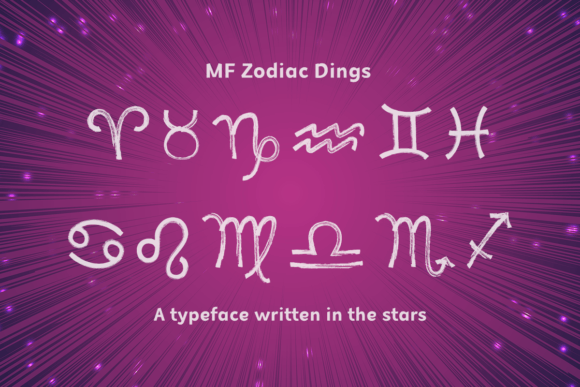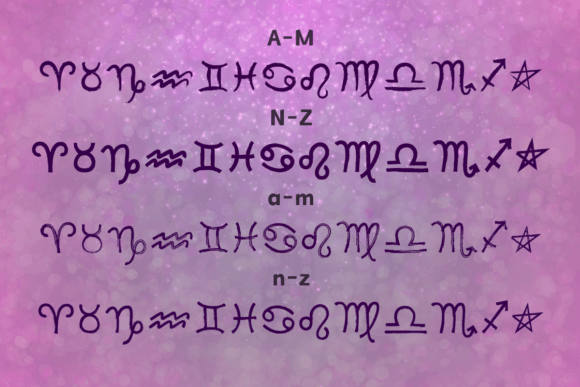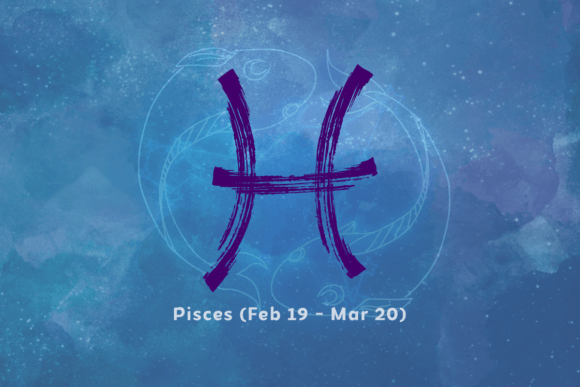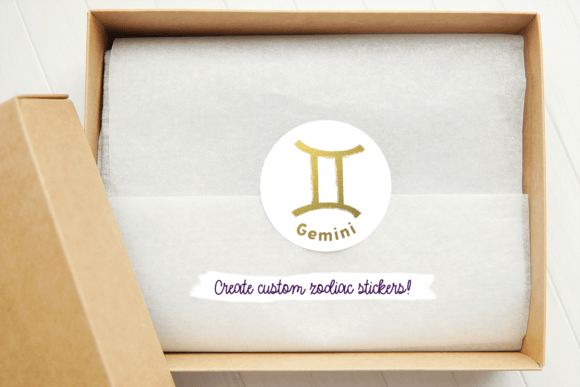
Mf Zodiac Dings Font
Introducing the MF Zodiac Dings dingbats font, a playful and captivating font designed specifically for astrology enthusiasts and zodiac-themed projects. This unique font features four hand-drawn versions of each of the 12 astrological signs, offering a delightful variety to bring your designs to life.
Whether you’re creating content for astrology websites, designing book covers, or developing zodiac-inspired products, the MF Zodiac Dings font is the perfect companion. It allows you to effortlessly incorporate the astrological signs into your projects, adding a touch of charm and personality.
The MF Zodiac Dings font offers a range of hand-drawn variations for each zodiac sign, allowing you to explore different styles and find the perfect fit for your designs. Whether you prefer a bold and expressive illustration or a more intricate and detailed version, this font provides you with the flexibility to choose the style that resonates with your creative vision.
Astrology enthusiasts and professionals will appreciate the attention to detail and authenticity in the MF Zodiac Dings font. It captures the essence of each zodiac sign, allowing you to create captivating visuals that resonate with astrological symbolism. From Aries to Pisces, each sign is represented with care and creativity, making it easy for you to convey the unique characteristics and traits associated with each astrological sign.
The versatility of the MF Zodiac Dings font extends beyond digital applications. With its sublimation-friendly design, you can effortlessly incorporate these zodiac symbols into various projects. Whether you’re working on personalized apparel, mugs, home decor, or any other sublimation project, this font provides you with a wide range of options to create stunning zodiac-themed designs.
Embrace the world of astrology and let your creativity soar with the MF Zodiac Dings dingbats font.